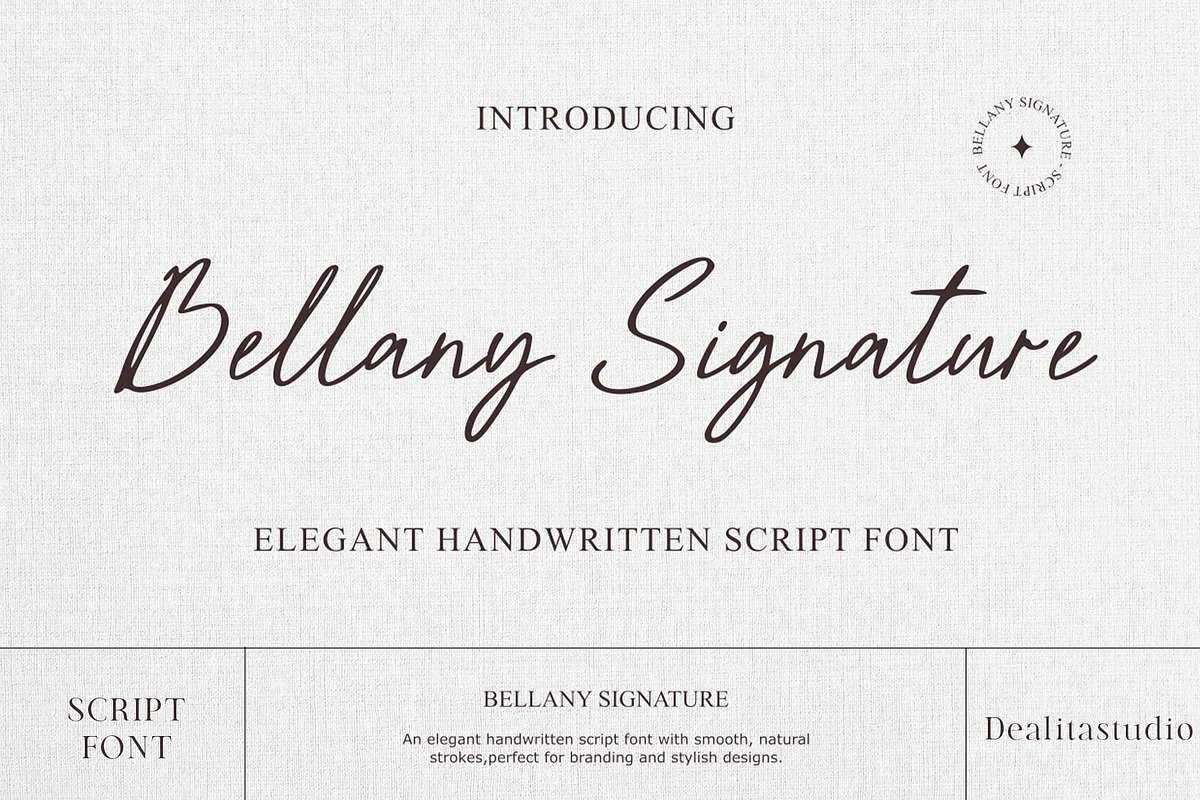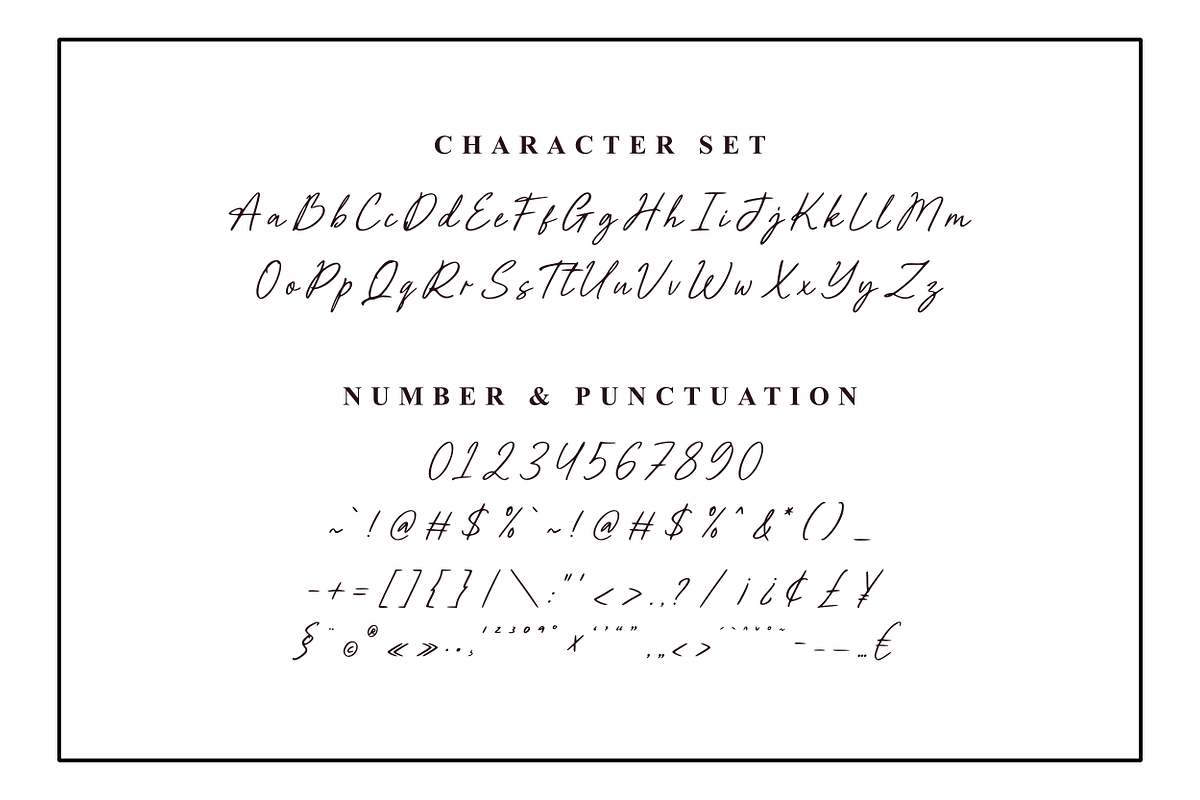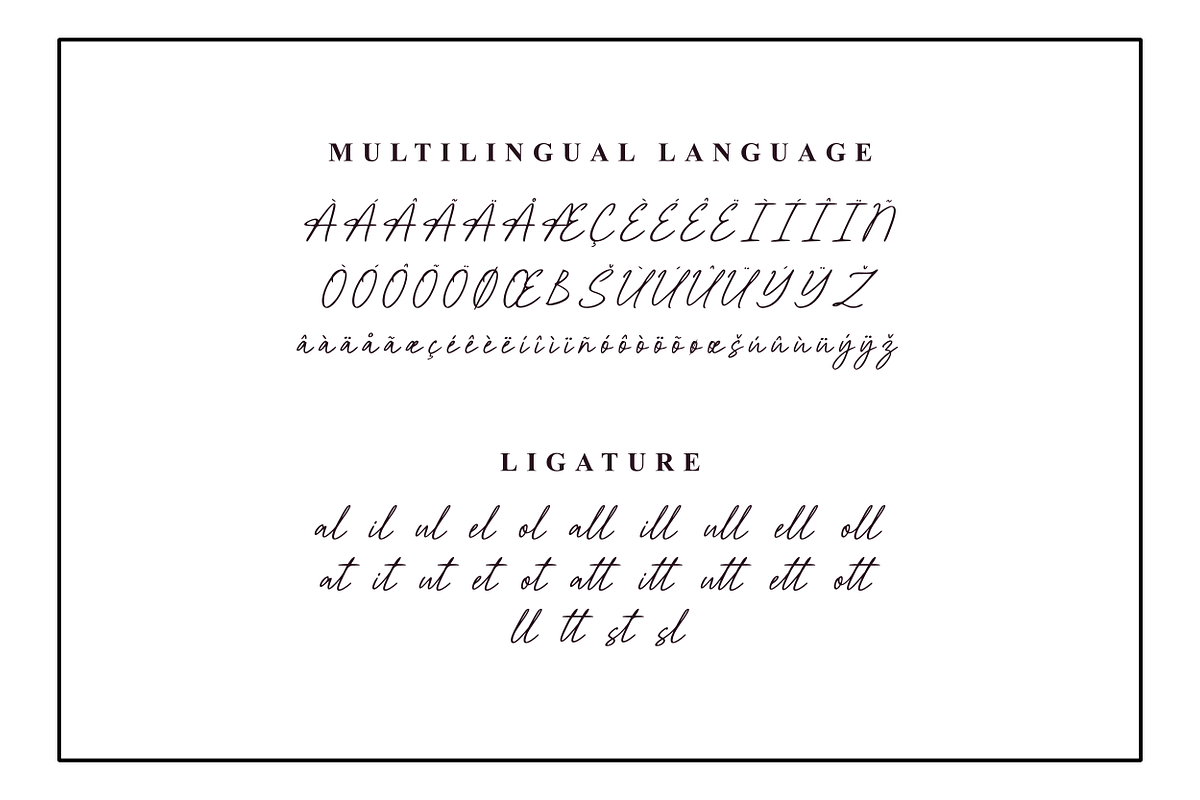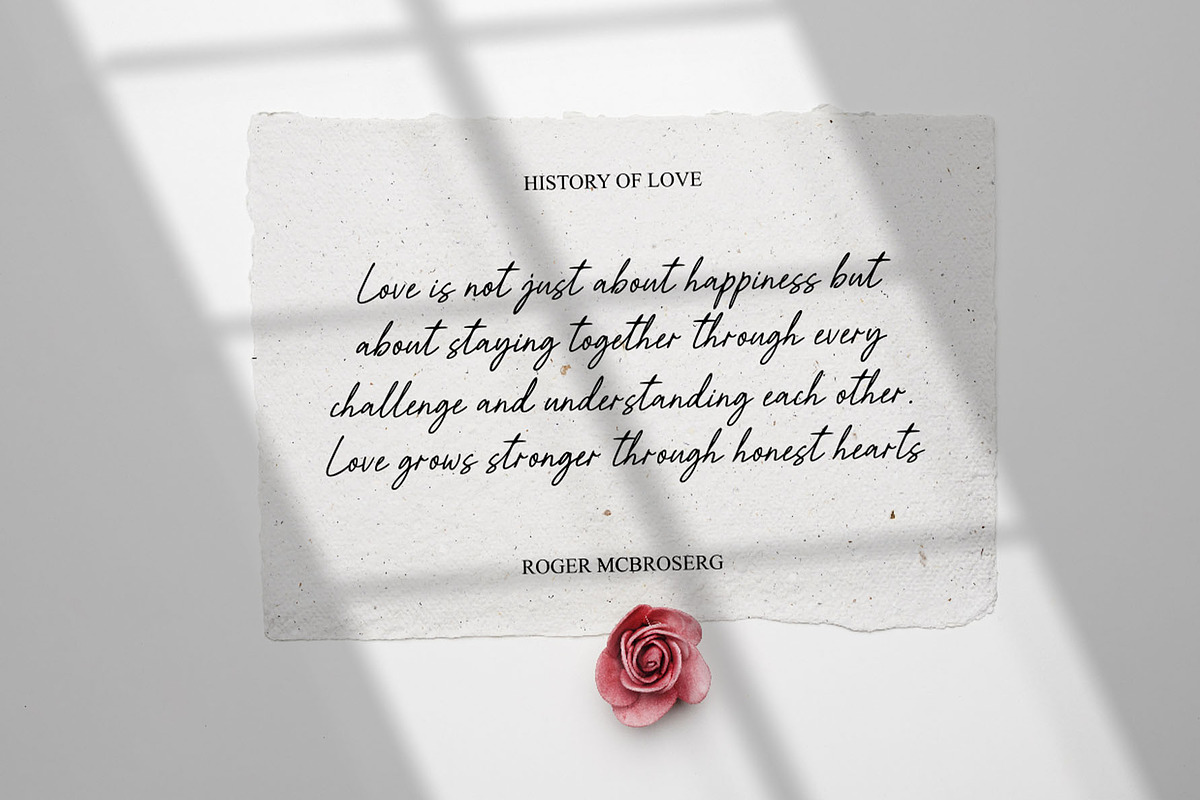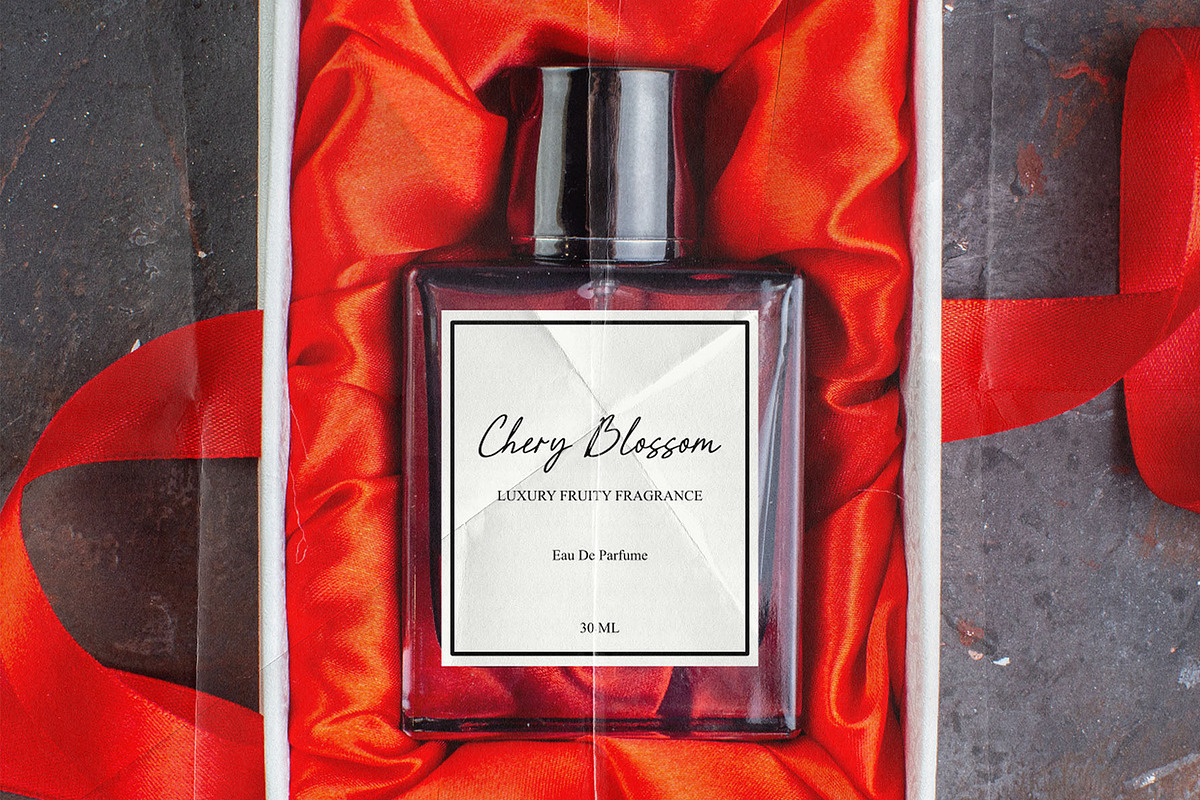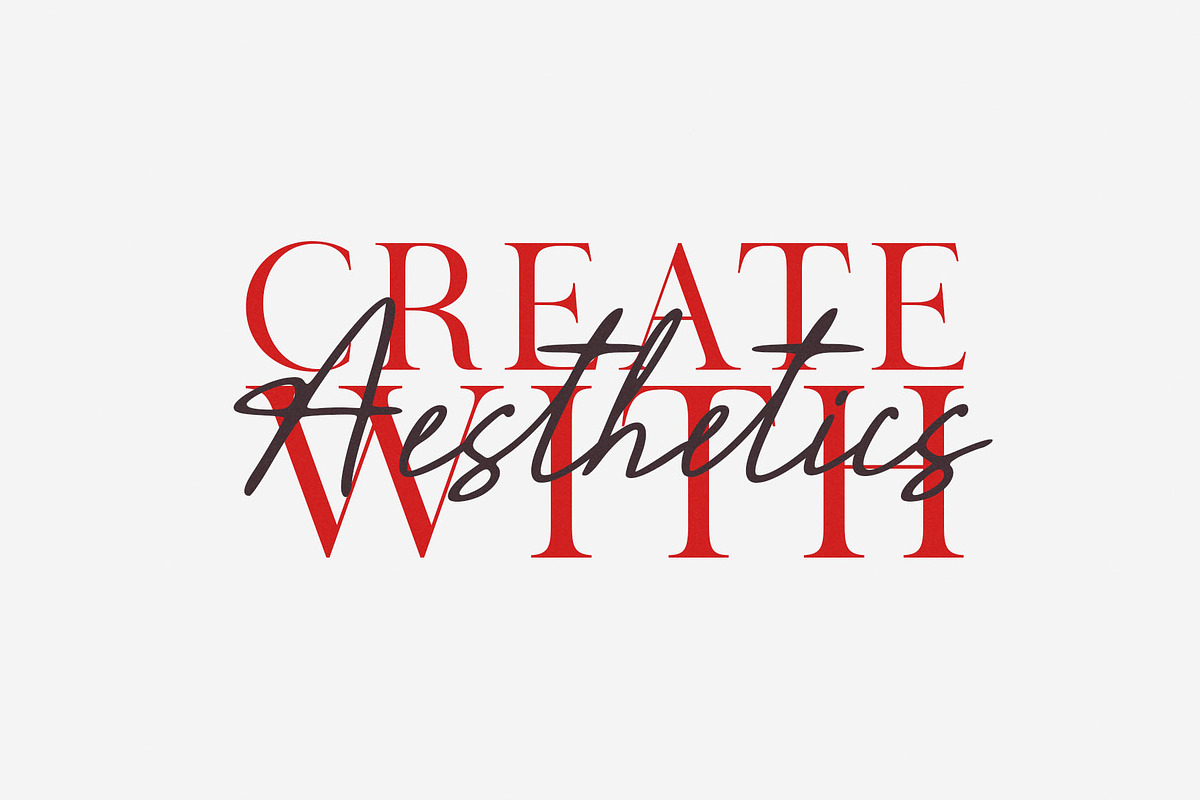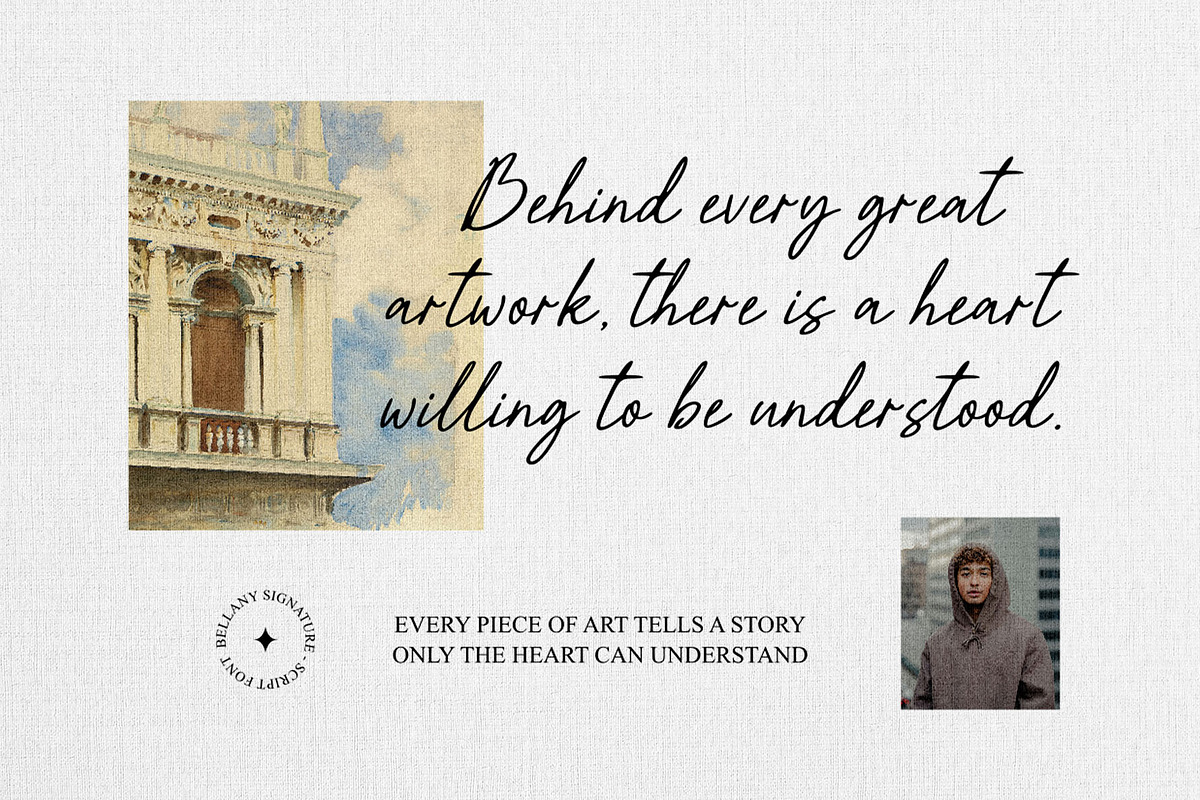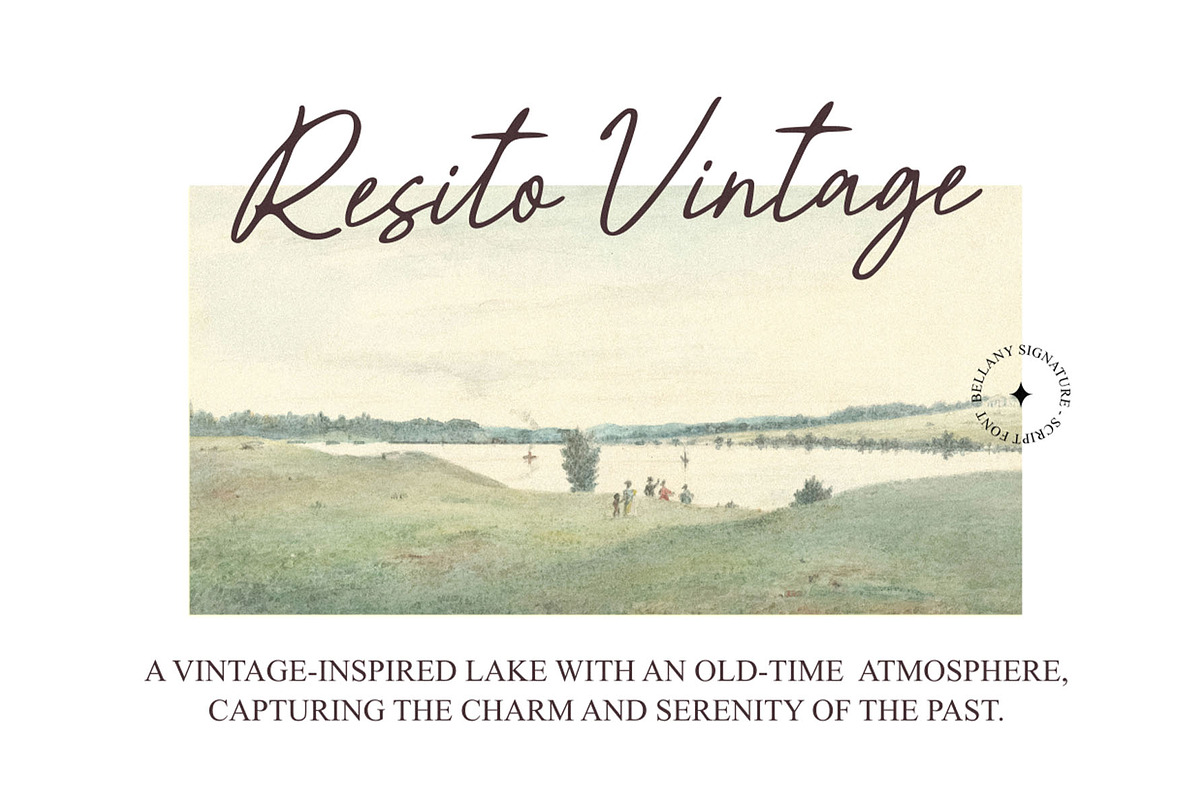
Bellany – Elegant Handwritten Script
Bring a handcrafted elegance to your luxury branding projects with Bellany – a script where every ligature feels deliberately drawn.
Bellany Signature is an elevated handwritten script, meticulously crafted to bring a timeless, feminine charm to your work. It captures the essence of “Quiet Luxury” – perfect for wedding invitations, perfume branding, inspirational quotes, and any design that calls for refined elegance.
Why designers love it
- Smart Ligatures (24): custom‑crafted connections let letters flow naturally, giving text an authentic, bespoke‑signature feel without the robotic look of standard fonts.
- Precision Kerning: manually tuned spacing ensures crystal‑clear readability – from minimalist logos to expressive editorial layouts – so you spend less time fixing awkward pairs and more time on creativity.
Full set of 24 custom ligatures
Pairing Tip : Bellany pairs beautifully with a clean serif such as Quincy Serif – the contrast between its flowing script and a refined serif elevates wedding invitations, perfume labels, and quote graphics with sophisticated balance.